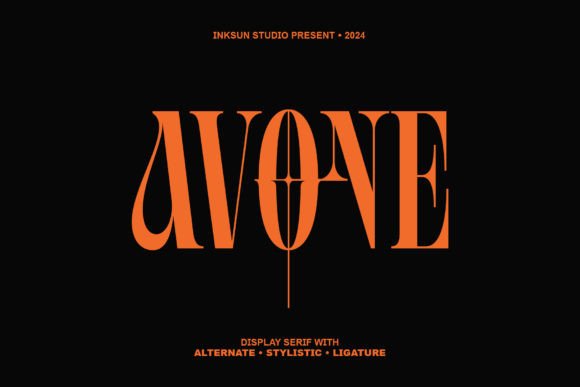
The Elusive Font: A Designer’s Quest for Timeless Elegance
I still remember the countless hours I spent searching for the perfect font for a luxury branding project. My client wanted a font that exuded classic elegance, yet had a modern twist. I scoured the internet, tried out numerous fonts, but nothing seemed to fit the bill. That was until I stumbled upon Avone Font. ✨
Avone is a stylish serif font that seamlessly blends traditional sophistication with modern refinement. Its beautifully crafted serifs and well-proportioned letterforms make it an ideal choice for branding, editorial work, and luxury designs. In this article, I’ll share my experience with Avone, its features, and how to make the most of it in your designs.
An Honest Review of Avone Font
What I Love About Avone ✨
- ✅ Timeless elegance: Avone brings a sense of classic sophistication to any project, making it perfect for luxury brands and high-end designs.
- ✅ Versatility: This font works beautifully in various design contexts, from editorial work to branding and advertising.
- ✅ Well-crafted letterforms: Avone’s letterforms are meticulously designed, ensuring excellent readability and aesthetic appeal.
- ✅ OpenType features: Avone supports OpenType features, allowing for advanced typographic control and customization.
While Avone is an exceptional font, there are a few minor limitations to consider:
- 🤔 Limited availability of stylistic alternates: Although Avone has some stylistic alternates, it could benefit from a more extensive range of variations.
- 🤔 Requires careful kerning: As with any serif font, Avone requires attention to kerning to ensure optimal readability, particularly at smaller font sizes.
A Practical Guide to Using Avone Font
The Story Behind Avone Font
Avone Font was designed with the goal of creating a timeless, elegant serif font that would cater to the needs of luxury brands and designers seeking a sophisticated aesthetic. The designer aimed to craft a font that would exude classic elegance while incorporating modern refinement. Through meticulous attention to detail and a deep understanding of typography, Avone was born.
Q: What makes Avone suitable for luxury designs?
A: Avone’s classic elegance, refined serifs, and well-proportioned letterforms make it an ideal choice for luxury designs, providing a sense of timeless sophistication.
Q: Can I use Avone for digital designs?
A: Yes, Avone is suitable for digital designs, including websites, mobile applications, and digital advertising. Its clear letterforms ensure excellent readability on various devices.
Q: Does Avone support OpenType features?
A: Yes, Avone supports OpenType features, allowing for advanced typographic control and customization. This feature is particularly useful for designers seeking more creative control over their typography.
Q: Is Avone suitable for body text?
A: While Avone is primarily designed for headlines and titles, it can be used for body text in certain design contexts. However, its legibility may vary depending on the font size and design application.